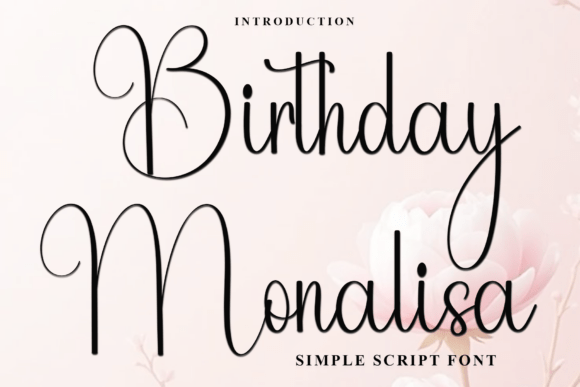
The Birth of a Beautiful Font: Discovering Birthday Monalisa
I still remember the time I was working on a birthday card design project, and I just couldn’t seem to find the perfect font. My client wanted something that was both elegant and playful, but everything I tried seemed to fall flat. That’s when I stumbled upon the Birthday Monalisa Font ✨. It was love at first sight! The soft, unique touch and distinctive strokes of this font immediately caught my attention, and I knew I had found what I was looking for.
An Honest Review: What I Love and What I Don’t
The Good: What I Love About Birthday Monalisa Font
- ✨ Unique and eye-catching design: The Birthday Monalisa Font stands out from the crowd with its soft, cursive strokes and distinctive character.
- 🌈 Variety of characters: The font comes with a range of characters, making it perfect for creative projects that require a personal touch.
The Not-So-Good: A Few Quirks
One of the best things about the Birthday Monalisa Font is its OpenType features and glyphs. With access to a range of stylistic alternates, you can customize your text to make it truly unique. Here are a few tips for exploring OpenType features:
The Designer Inspiration Behind Birthday Monalisa Font
The Birthday Monalisa Font was designed with a passion for creativity and a love of elegant typography. The designer wanted to create a font that was both beautiful and versatile, perfect for a wide range of design projects. With its soft, unique touch and distinctive strokes, it’s no wonder that this font has become a favorite among designers and crafters alike.
Q: What is the Birthday Monalisa Font?
A: The Birthday Monalisa Font is a beautiful and eye-catching font designed with a soft, unique touch and distinctive strokes.